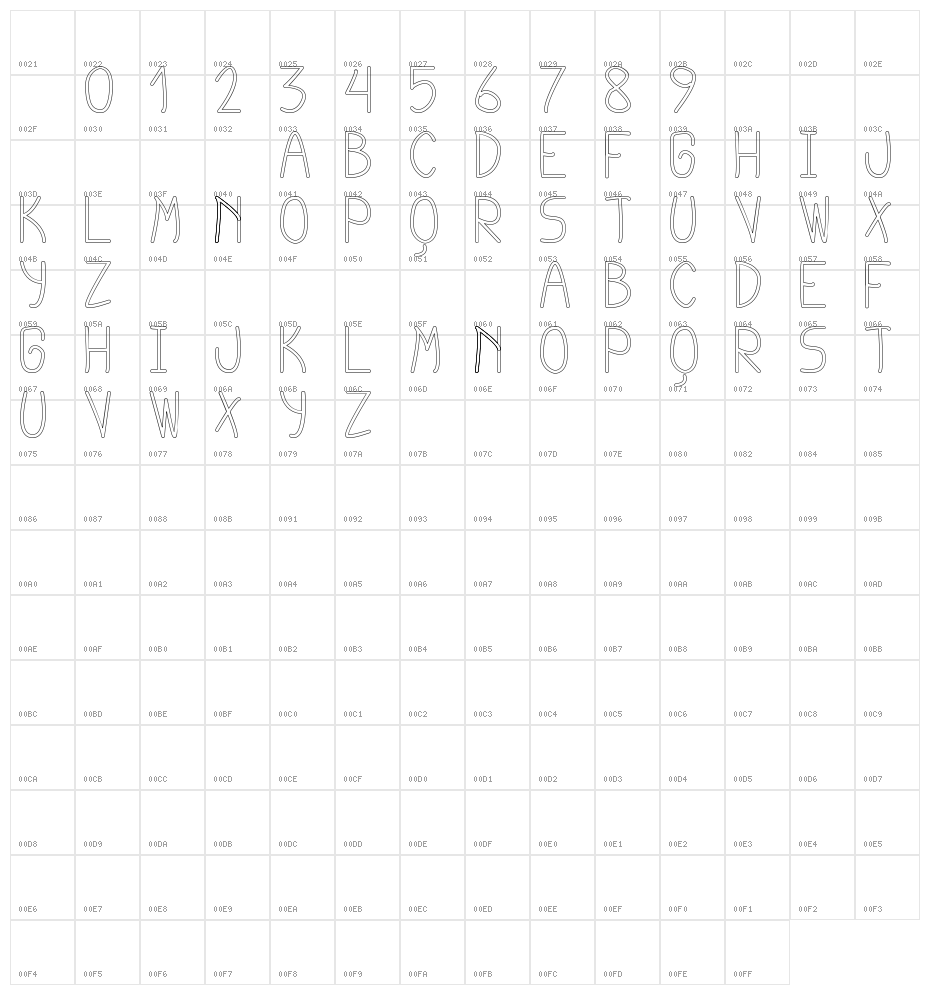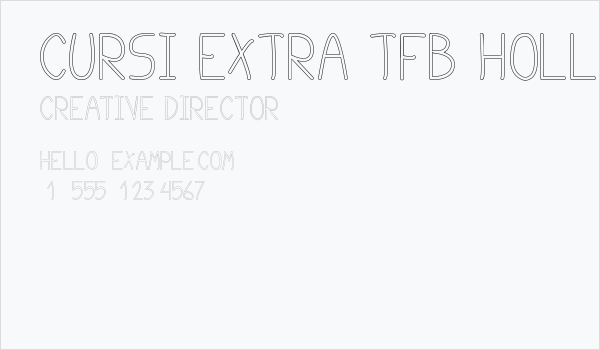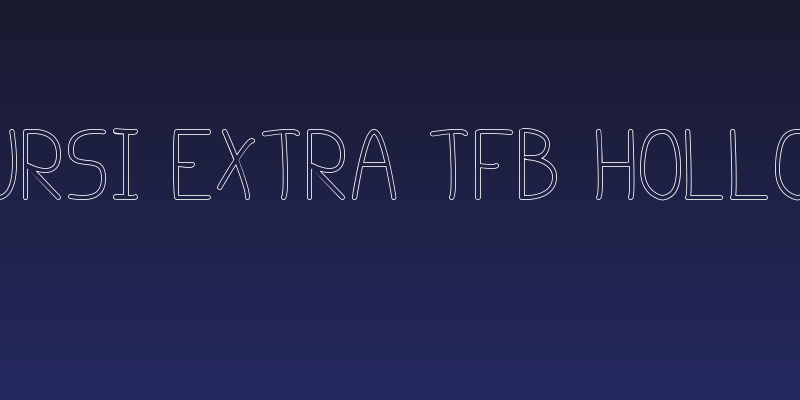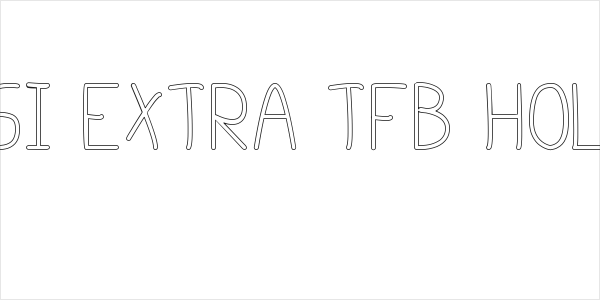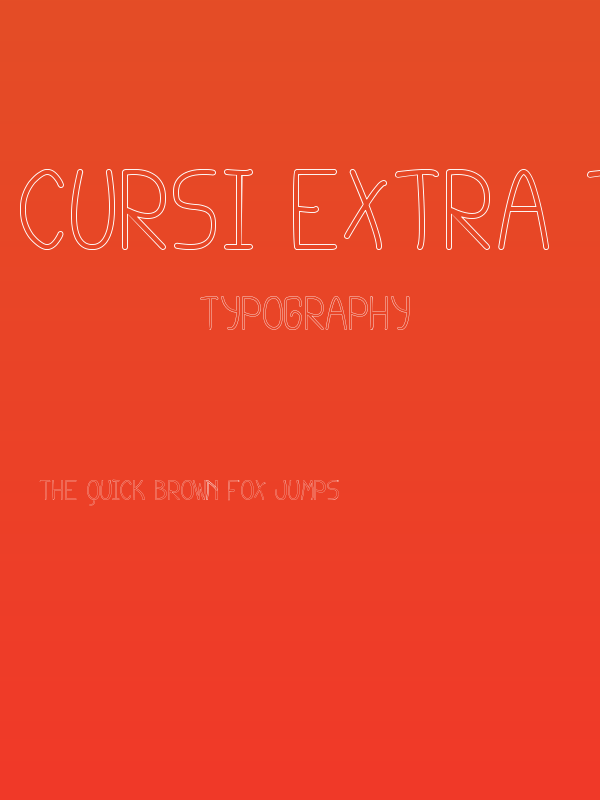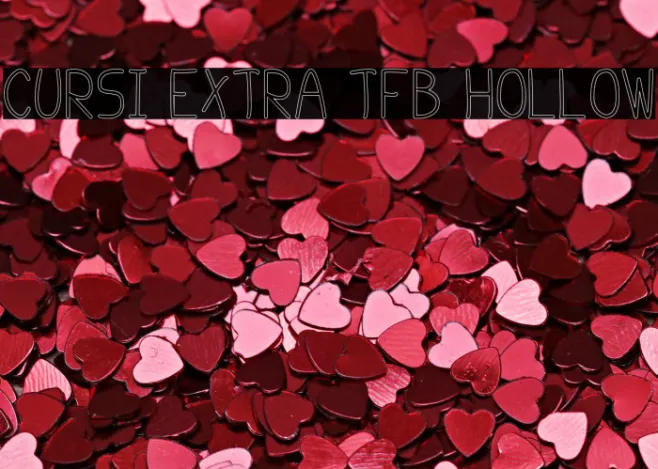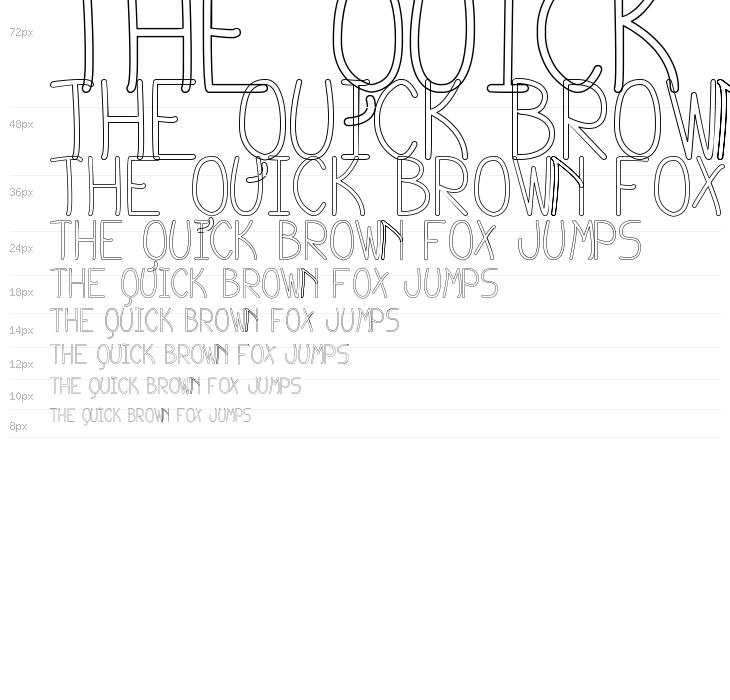
cursi extra tfb hollow Font
cursi extra tfb hollow Description
This font features a playful and whimsical design with hollow, outlined characters. The letters are rounded and slightly irregular, giving them a hand-drawn, casual feel. The uppercase and lowercase letters maintain a consistent style, with smooth curves and a uniform stroke width. The numbers follow the same aesthetic, ensuring cohesion across all characters. The font's open, airy design makes it ideal for projects that require a light-hearted and approachable look.
| Proposed Projects | Ideal for children's books, greeting cards, playful branding, and casual invitations. |